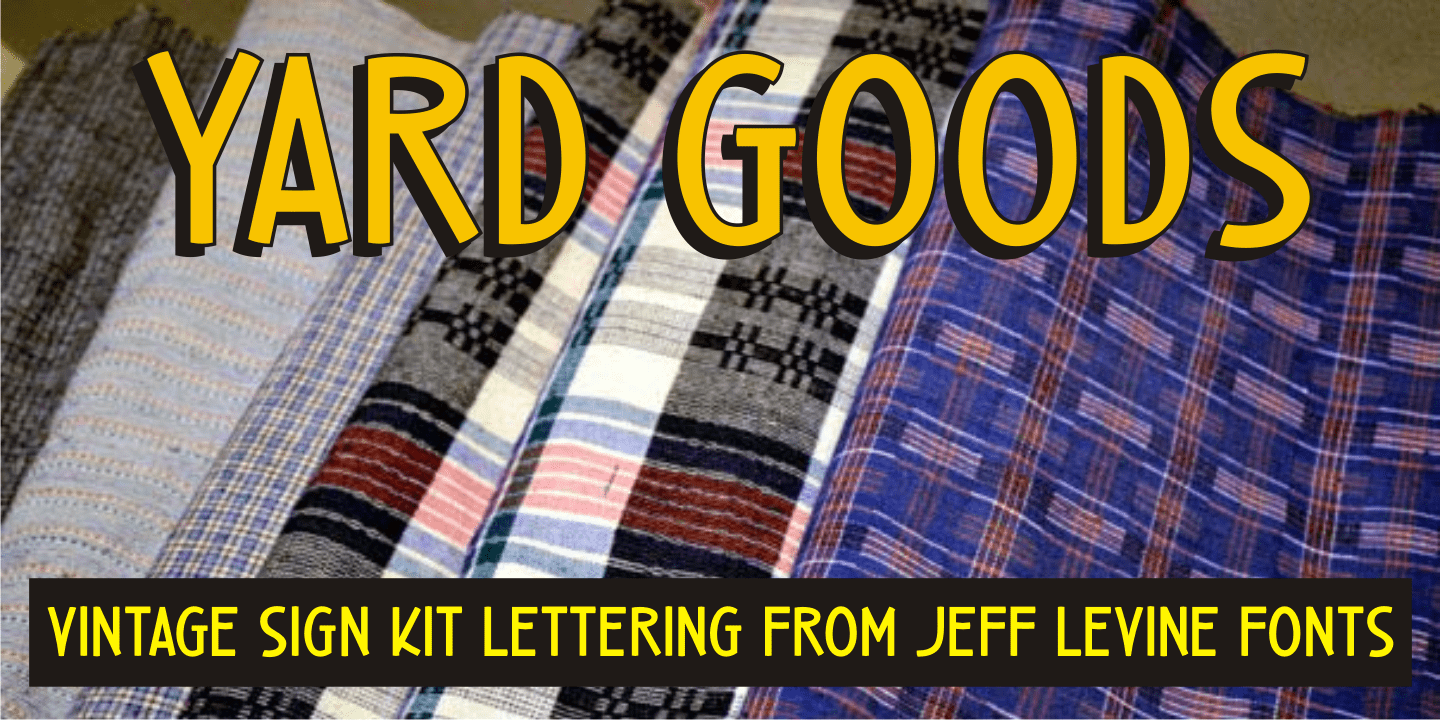
Yard Goods
Yard Goods JNL is another typeface derived from a sign making outfit consisting of a series of stencils manufactured by the Display Material Company of St. Paul Minnesota.
This clean and casual sans design embodies the hand-lettering of 1920s and 30s era show cards, price tickets and display signs.
Yard Goods JNL Regular by Jeff Levine Fonts